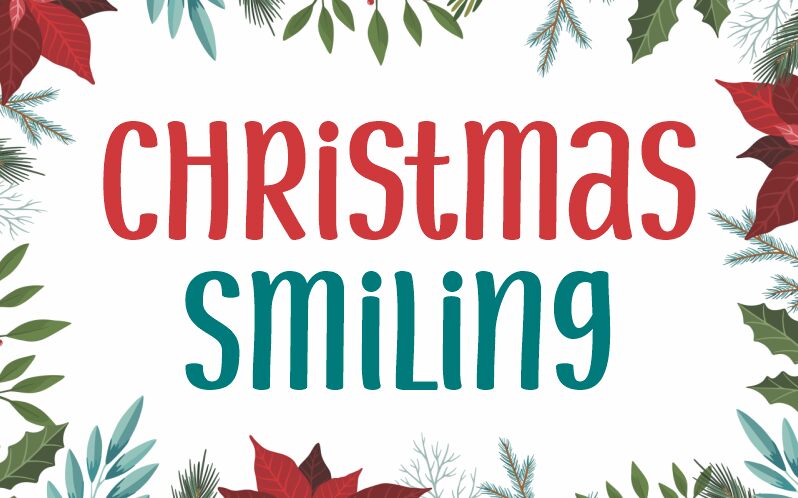
"Christmas Smiling" is the perfect font for all your holiday projects! Designed by Iwan Kristiaman Nazara; Jasman Nazara; Situjuh Nazara, this narrow display font will bring a festive mood to posters, greeting cards, invitations and more.